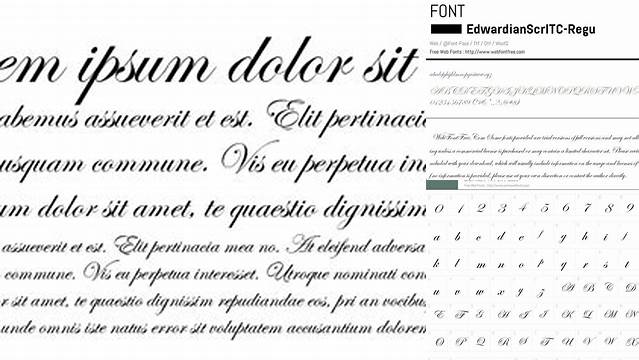
Hey guys! Have you ever stumbled upon a font that just oozes elegance and vintage charm? Well, let me introduce you to the Edwardian Script ITC Regular font. This font is like the Audrey Hepburn of typefaces – timeless, sophisticated, and always in style. In this article, we're diving deep into everything you need to know about this beautiful font, including where to find it for free and how to use it to make your projects shine. So, grab a cup of coffee, get comfy, and let's get started!
What is Edwardian Script ITC Regular?
The Edwardian Script ITC Regular is more than just a font; it's a piece of art. Designed to capture the spirit of the Edwardian era, this typeface is characterized by its flowing lines, delicate curves, and a touch of old-world glamour. Imagine those elegant invitations, vintage posters, and classic book covers – that’s the kind of vibe this font brings to the table. It's perfect for adding a touch of sophistication to any design project, making it a favorite among designers and creatives alike.
This font belongs to the script typeface family, which means it's designed to mimic the fluid strokes of handwriting. However, unlike some overly ornate script fonts, Edwardian Script ITC Regular strikes a perfect balance between readability and elegance. This makes it versatile enough to be used in a variety of applications, from wedding invitations and greeting cards to logos and branding materials. The font's creator truly captured the essence of a bygone era, giving us a typeface that feels both classic and timeless. When you use Edwardian Script ITC Regular, you're not just choosing a font; you're choosing to infuse your work with a sense of history and sophistication. So, whether you're working on a personal project or a professional design, consider adding this gem to your font library. You won't regret it!
Key Features of Edwardian Script ITC Regular Font
So, what makes the Edwardian Script ITC Regular font so special? Let's break down its key features to truly appreciate its beauty and functionality. First off, the flowing lines are simply mesmerizing. Each character seamlessly connects to the next, creating a sense of fluidity and grace that's hard to find in other fonts. The delicate curves add a touch of femininity and elegance, making it perfect for projects that need a soft and sophisticated touch.
Another standout feature is its readability. While some script fonts can be difficult to decipher, Edwardian Script ITC Regular strikes a perfect balance between style and clarity. The letters are distinct and well-formed, ensuring that your message is easily understood, even at smaller sizes. This makes it a versatile choice for both headings and body text. Additionally, the font includes a variety of ligatures and alternate characters, allowing you to customize your typography and add a unique flair to your designs. These extra flourishes can really elevate your work, giving it a polished and professional look. The Edwardian Script ITC Regular also boasts excellent kerning, which refers to the spacing between individual letters. This attention to detail ensures that the font looks balanced and harmonious, no matter the combination of characters you use. It’s these subtle nuances that set this font apart from the rest and make it a true masterpiece of typography. Whether you're designing a wedding invitation, creating a logo, or crafting a social media graphic, the Edwardian Script ITC Regular font will help you achieve a look that's both elegant and timeless. Its unique combination of beauty, readability, and versatility makes it a must-have in any designer's toolkit.
How to Use Edwardian Script ITC Regular Font in Your Designs
Okay, you've got the Edwardian Script ITC Regular font (or a close alternative) – now what? Let's talk about how to use this beauty in your designs to really make them pop. First and foremost, consider the overall tone and message of your project. This font is all about elegance and sophistication, so it's perfect for projects that aim to convey a sense of luxury, tradition, or romance.
One of the most popular uses for Edwardian Script ITC Regular is in wedding invitations. The flowing lines and delicate curves add a touch of romance and formality, making it an ideal choice for setting the tone for a special day. You can use it for the main headings, the names of the bride and groom, or even for decorative elements like monograms or borders. Another great application is in branding and logo design. If you're working with a brand that wants to project a sense of heritage, quality, or craftsmanship, this font can be a perfect fit. It's particularly well-suited for businesses in the fashion, beauty, or hospitality industries. When using Edwardian Script ITC Regular in your designs, it's important to pay attention to the spacing between letters and lines. Proper kerning and leading can make a big difference in readability and overall visual appeal. Experiment with different sizes and weights to see what works best for your particular project. Also, consider pairing it with a complementary sans-serif font for body text. This can create a nice contrast and improve readability, especially for longer blocks of text. Don't be afraid to get creative and experiment with different color combinations, textures, and graphic elements to enhance the overall design. With a little bit of imagination and attention to detail, you can use Edwardian Script ITC Regular to create designs that are both beautiful and effective. So, go ahead and unleash your creativity and see what amazing things you can create with this timeless font!
So, there you have it – a comprehensive guide to the Edwardian Script ITC Regular font and how to find it (or alternatives) for free! This font is a true gem, offering a perfect blend of elegance, readability, and versatility. Whether you're designing wedding invitations, creating a logo, or crafting social media graphics, Edwardian Script ITC Regular can help you achieve a look that's both timeless and sophisticated. Remember to always download fonts from reputable sources and to check the licensing information before using them in your projects. And don't be afraid to explore different alternatives to find the perfect fit for your needs. With a little bit of creativity and attention to detail, you can use this beautiful font to create designs that are truly unforgettable. Happy designing, guys! I hope this helps you out!